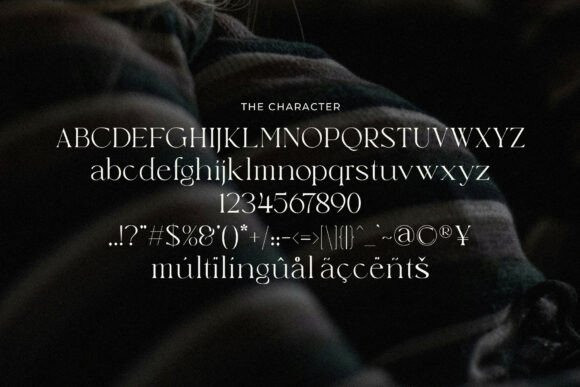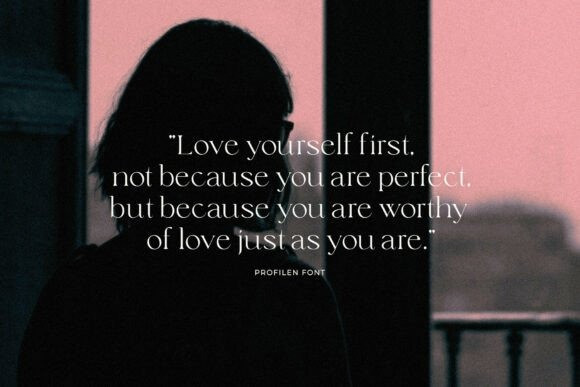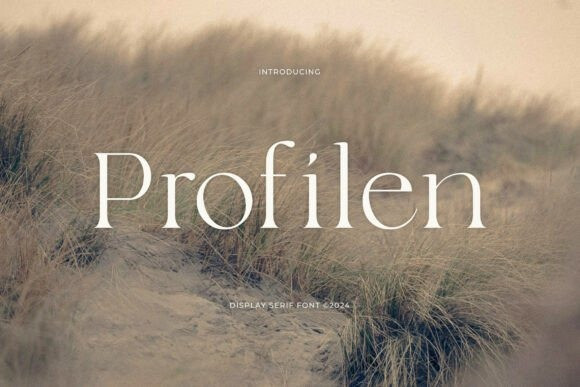
Profilen Font
Profilen Font is a refined display serif font that exudes sophistication and casual elegance. Its clean lines and graceful proportions are ideal for projects that require a classy and professional look. Whether you’re designing for editorial, branding, or minimalist posters, Profilen brings a timeless charm that elevates the overall aesthetic.